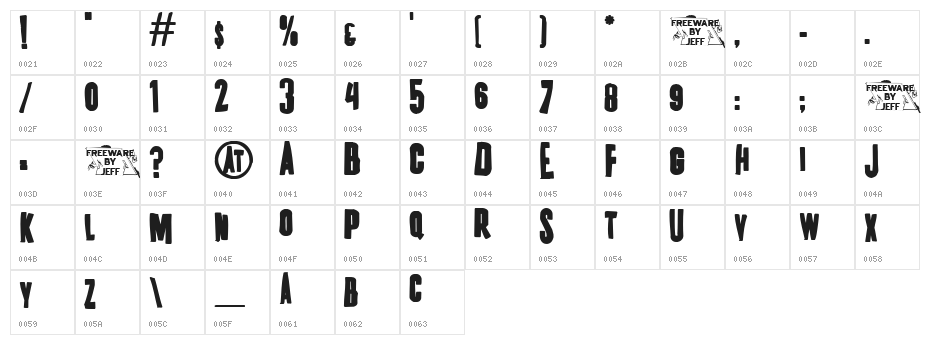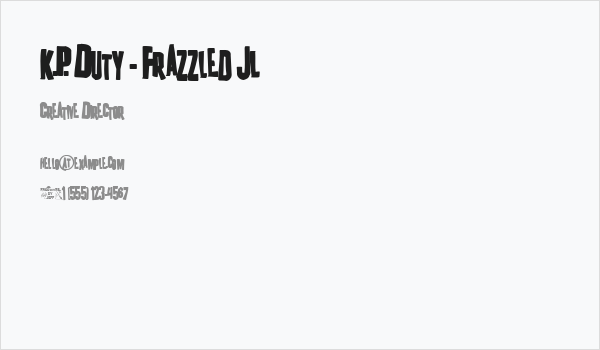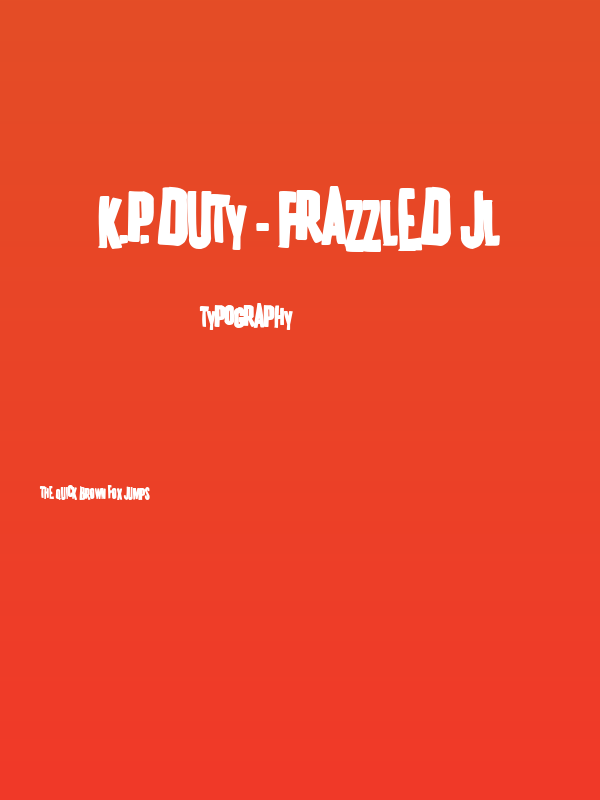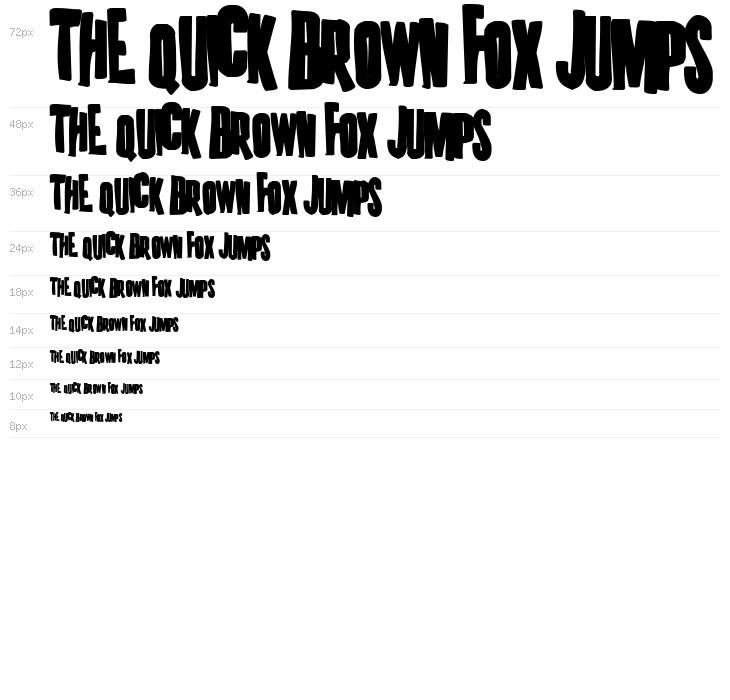
K.P. Duty - Frazzled JL Font
K.P. Duty - Frazzled JL Description
This font features a bold and playful style with exaggerated, irregular shapes that give it a unique, hand-drawn appearance. The letters are thick and chunky, with a slightly uneven baseline, adding to its whimsical and informal character. The numbers and special characters maintain this quirky style, making it suitable for creative and artistic projects. The font's boldness ensures high visibility, while its distinctive design adds a touch of fun and personality.
| Proposed Projects | Ideal for posters, children's books, comic strips, and playful branding. |